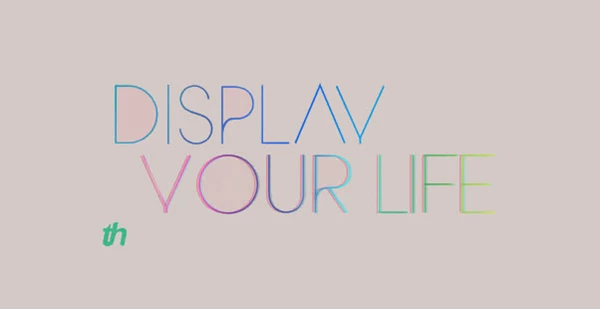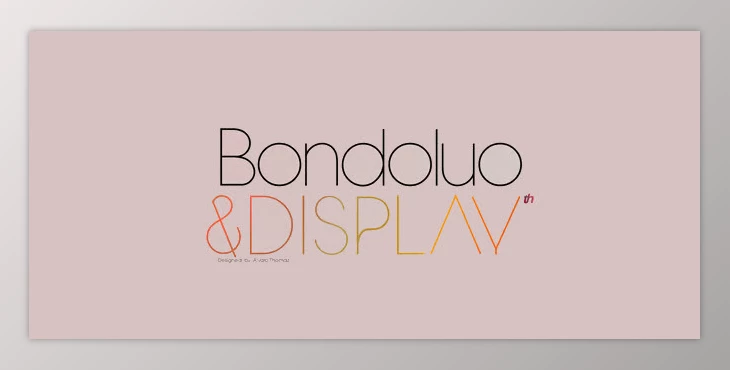
Bondoluo is a geometric designer type family by Álvaro Thomáz in 2012. Bondoluo is a geometric type family based on three geometric shapes, triangles, circles, and squares, and 2 basic type appearances, Futura® and URW Gothic. Bondoluo is one of the trendiest type families in existence. Even Bondoluo Display comes from the trendy parts of Diamonds by HVD. If you want something trendy for your next project, look no further than Bondoluo for a print or web project with a trendily thin, sans-serif look. Get your shapes aligned with Bondoluo."My Fonts - Bondoluo - Fashionable Geometric Forms" Sample: